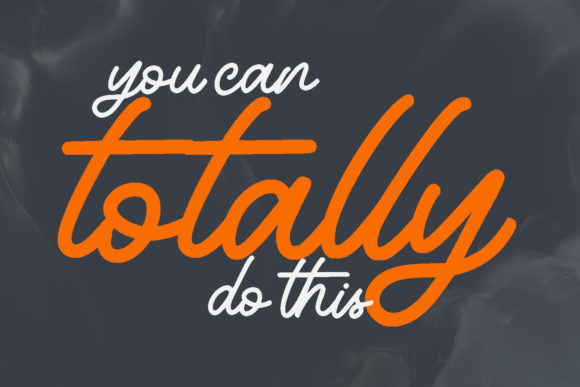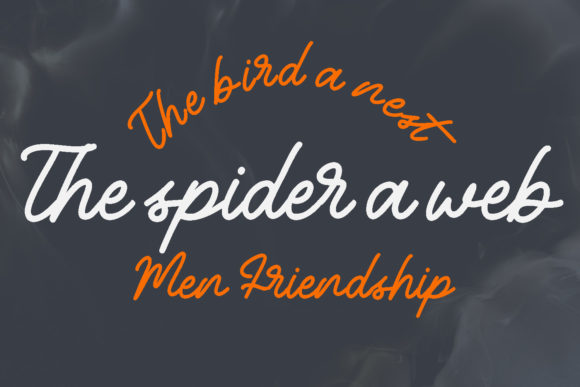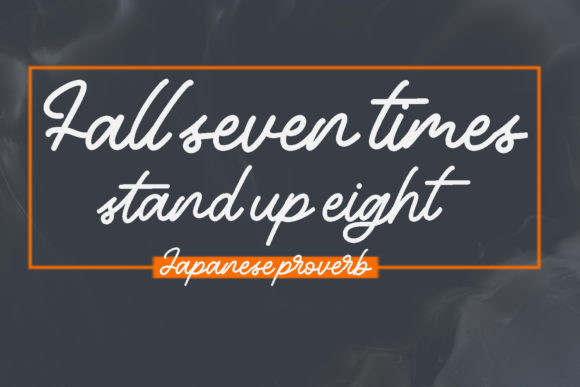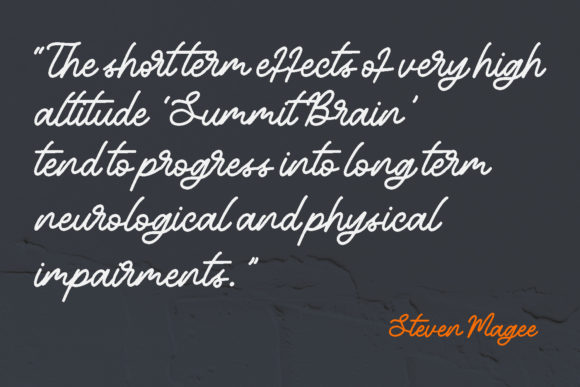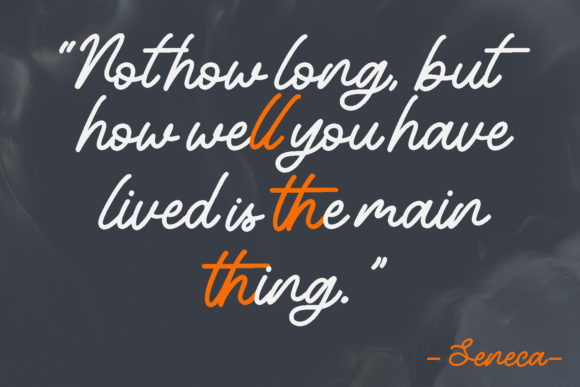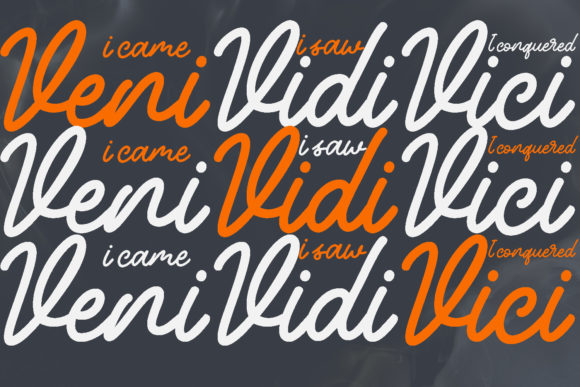
The Perfect Blend of Whimsy and Sophistication: Introducing Bayhours Font
Do you remember the moment when you stumbled upon the perfect font for your next project? For me, it was a late-night design session, and I was frantically searching for the perfect script font to give my branding a unique touch. That’s when I discovered the Bayhours Font, and my design world was forever changed.
The Bayhours Font is a beautiful, cursive, and vintage styled script font that’s perfect for a wide range of projects, from blog posts and logos to invitations and photo albums. With its mono-line strokes, fun characters, ligatures, and alternates, this font is a treasure trove for designers looking to add a touch of personality to their work.
Bayhours Font Key Features
- Unique Characteristic: Bayhours Font features a unique blend of modern and vintage elements, with intricate details and ornaments that set it apart from other fonts.
- Weight and Style: Bayhours Font comes in 6 different weights (Light, Regular, Medium, Bold, Extra Bold, and Black) and 3 different styles (Regular, Italic, and Bold Italic), offering a high degree of flexibility and customization.
Bayhours Font Review
I’ve had the chance to work with Bayhours Font, and overall, it’s a decent addition to any design library. ✨ The font’s modern and sleek aesthetic makes it perfect for creating a contemporary feel in your designs. It’s especially great for use in titles, headings, and any other prominent text elements.
- ✨ Great for modern and sleek designs
- ✨ Suitable for use in titles and headings
- ✨ Offers a range of font sizes and styles
However, there are a few limitations to consider. ⚠️ The font can appear a bit too thin at times, especially when used in smaller font sizes. This might make the text harder to read, especially for those with visual impairments. Additionally, the font’s lack of bold weight options can be a drawback for designers who need to create emphasis or hierarchy in their designs.
- ⚠️ Can appear too thin in smaller font sizes
- ⚠️ Limited bold weight options
- ⚠️ May not be suitable for use in body text
Overall, Bayhours Font is a solid choice for designers looking to add a modern touch to their projects. While it may have some limitations, its sleek aesthetic and range of font sizes make it a great addition to any design library.
Tips for Getting the Most Out of Bayhours
For optimal results, use Bayhours in bold or italic to emphasize text. You can also pair it with other fonts to create a unique and eye-catching design.
The Bayhours font is ideal for:
- Headings and titles in creative projects.
- Displaying quotes or lyrics in a unique and visually appealing way.
- Adding a touch of elegance to your branding or marketing materials.